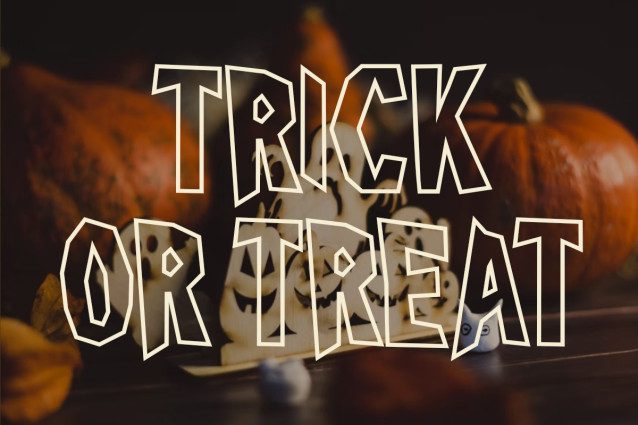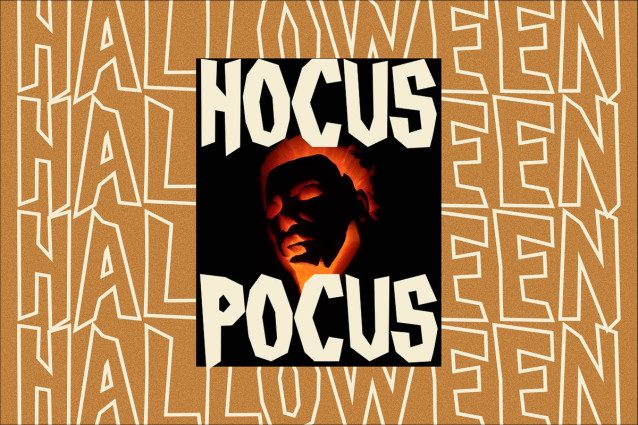
Gilmore Ghouls Font
Gilmore Ghouls Font is a quirky Halloween display font that brings playful spookiness to your designs. With its bold, jagged letterforms and cartoonish personality, this font perfectly captures the fun side of Halloween while keeping a slightly eerie vibe. Available in Regular and Outline styles, Gilmore Ghouls is versatile and eye-catching, making it ideal for posters, party invitations, packaging, social media graphics, or any project that needs a touch of spooky charm.